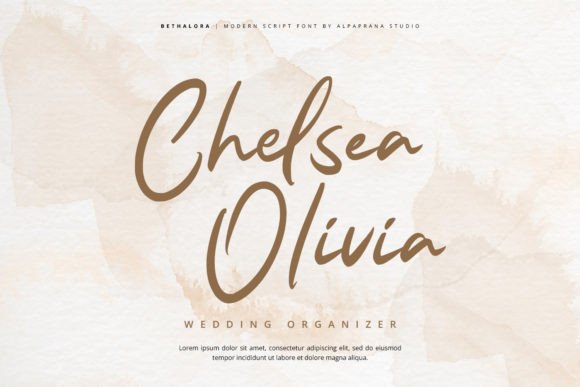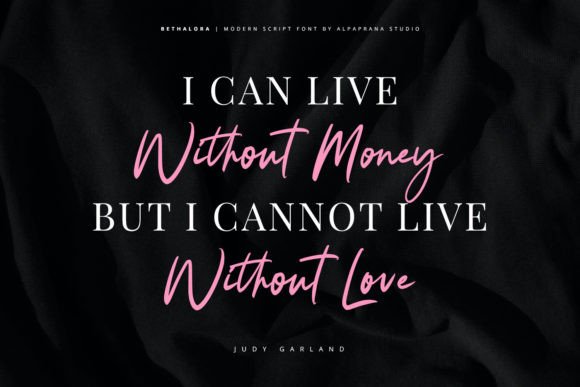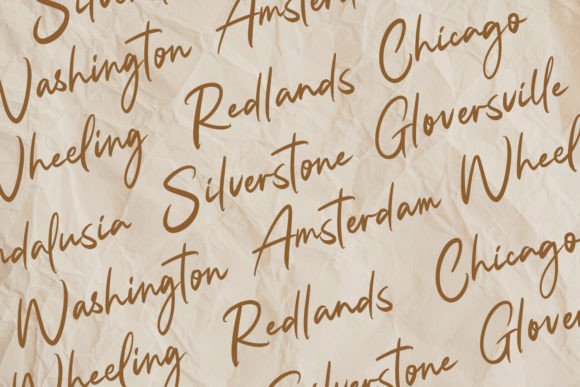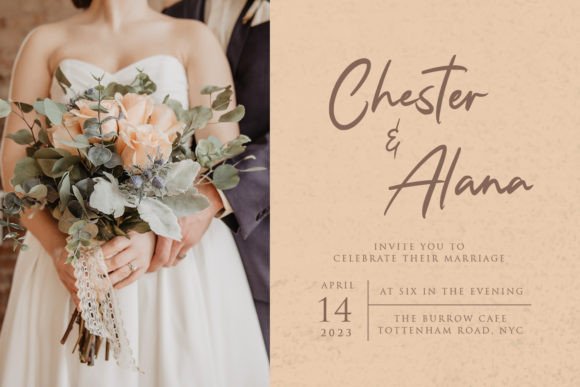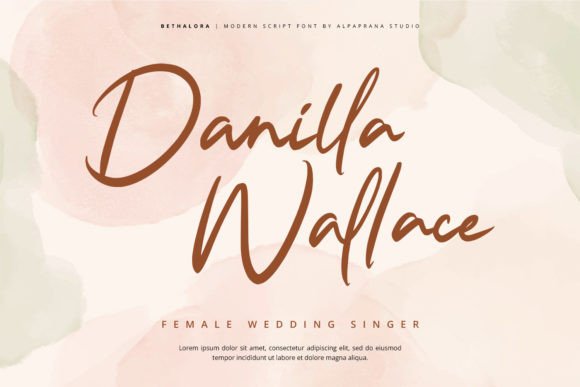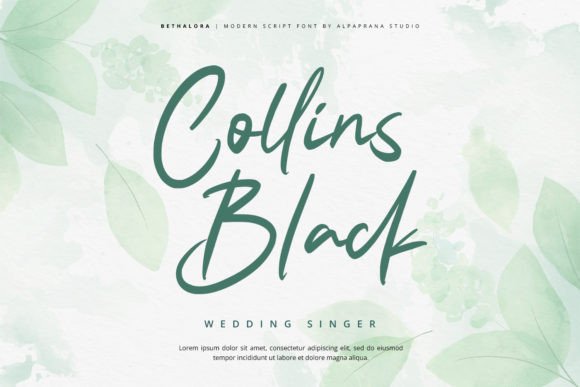
The Perfect Script for Your Next Masterpiece
Have you ever sat down with a blank canvas, a blank page, or even a blank screen, and felt an overwhelming urge to create something beautiful? That’s exactly what happened to me last weekend, when I stumbled upon the perfect script font to bring my ideas to life. I was working on a DIY project, designing a custom invitation for a friend’s wedding, and I knew I needed something special to make it stand out.
That’s when I discovered the Bethalora Font, a classy signature script font that elevates any design to the next level. Whether you’re looking for fonts for Instagram or calligraphy scripts for DIY projects, this font will turn any creative idea into a true piece of art! As a designer, I can attest to the value of having a versatile font like Bethalora Font in your toolkit – it’s a game-changer for any project that requires a touch of elegance and sophistication.
Bethalora Font Key Features
- Font Family: Bethalora Font
- Character Count: 2000+ glyphs, including Latin, Cyrillic, and Greek alphabets
- Font Size: Available in 4 weights: Light, Regular, Medium, Bold
- Resolution: Optimized for use at 300 DPI, suitable for print and digital media
- Unique Characteristics: Hand-drawn, elegant script with a vintage feel and subtle imperfections
Bethalora Font Review
I’ve had the chance to work with the Bethalora Font, and overall, I’m impressed. ✨ The font’s unique blend of elegance and modernity makes it perfect for high-end branding and advertising projects. The designer’s attention to detail is evident in the intricate flourishes and refined curves that give the font its distinctive character.
Here are some specific features that work well:
- The Bethalora Font is highly legible, even at small font sizes, making it ideal for digital applications.
- The font’s versatility allows it to work seamlessly in both print and digital formats.
- The Bethalora Font is available in a range of weights and styles, giving designers the flexibility to create unique and customized typography.
- ⚠️ The font may not be the best choice for body text, as its elegance can sometimes come across as overly formal or even stuffy.
- ⚠️ The Bethalora Font’s unique style may not be to everyone’s taste, and some designers may find it too ornate or distracting.
Overall, I think the Bethalora Font is a great addition to any designer’s toolkit. While it may not be suitable for every project, its unique character and versatility make it a valuable resource for designers looking to create high-end, visually stunning typography.
The Bethalora font is ideal for use in:
- Typography-based artwork and graphics
Some tips for getting the most out of the Bethalora font include:
- Combine the Bethalora font with other fonts for a unique and interesting look.
- Use the font in conjunction with bold and italic text
Alternatives to Bethalora Font
Aurora
Aurora is a modern sans-serif font that offers a clean and elegant look. It is ideal for use in designs that require a professional and sophisticated feel. Aurora is similar to Bethalora Font in its clean and minimalist design, but it has a slightly more geometric and futuristic look.
Lato is a popular sans-serif font that is highly versatile and suitable for a wide range of designs. It has a friendly and approachable feel that makes it perfect for use in corporate branding, advertising, and editorial content. Compared to Bethalora Font, Lato has a more rounded and humanistic look, making it ideal for use in designs that require a friendly and approachable tone.
Montserrat is a geometric sans-serif font that is inspired by the urban landscape of Barcelona. It is ideal for use in designs that require a strong and modern feel. Montserrat has a similar urban and industrial look to Bethalora Font, but it has a more geometric and structured design.